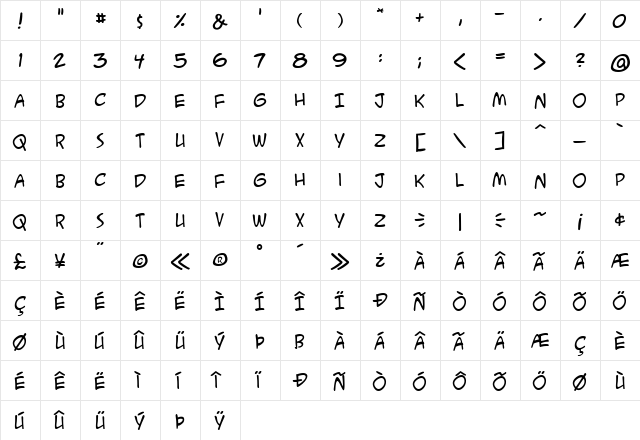
ACME Secret Agent BB Regular
Regular · Nate Piekos. Blambot.com Nate Piekos ·
Foundry Nate Piekos. Blambot.com
DesignerNate Piekos
Design Context for ACME Secret Agent BB Typeface
ACME Secret Agent BB is a composed and adaptable typeface that performs quietly and consistently across a wide range of design contexts.